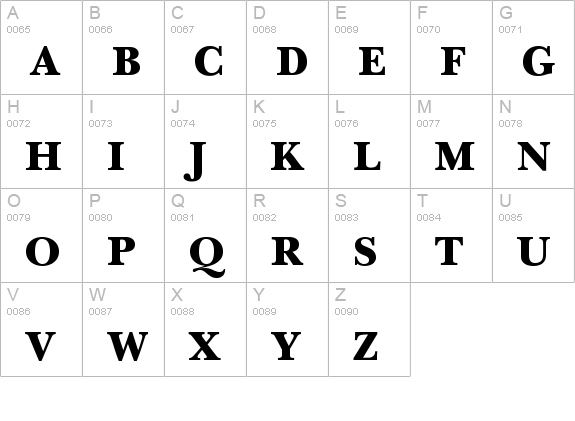
New Baskerville* Black Font Details
New Baskerville* Black is a maximum-weight, dramatic variant in the New typeface family \xE2\x80\x94 well suited to maximum-impact headlines, posters, and packaging.
New Baskerville Black is a classic and elegant serif font that exudes sophistication and timelessness. Its bold weight commands attention and makes a strong statement in any design project. The sturdy serifs and clean lines of New Baskerville Black give it a refined and authoritative appearance, making it perfect for headings, titles, and other prominent text elements. What sets New Baskerville Black apart is not only its striking design but also its availability for free download at FontsMarket.com. This means that you can easily access this high-quality font without any cost, making it a valuable addition to your font library. Whether you're working on a print design, website, or any other creative project, New Baskerville Black is a versatile typeface that will elevate your work with its timeless appeal and bold presence. Download it now and enhance your designs with this exceptional font.